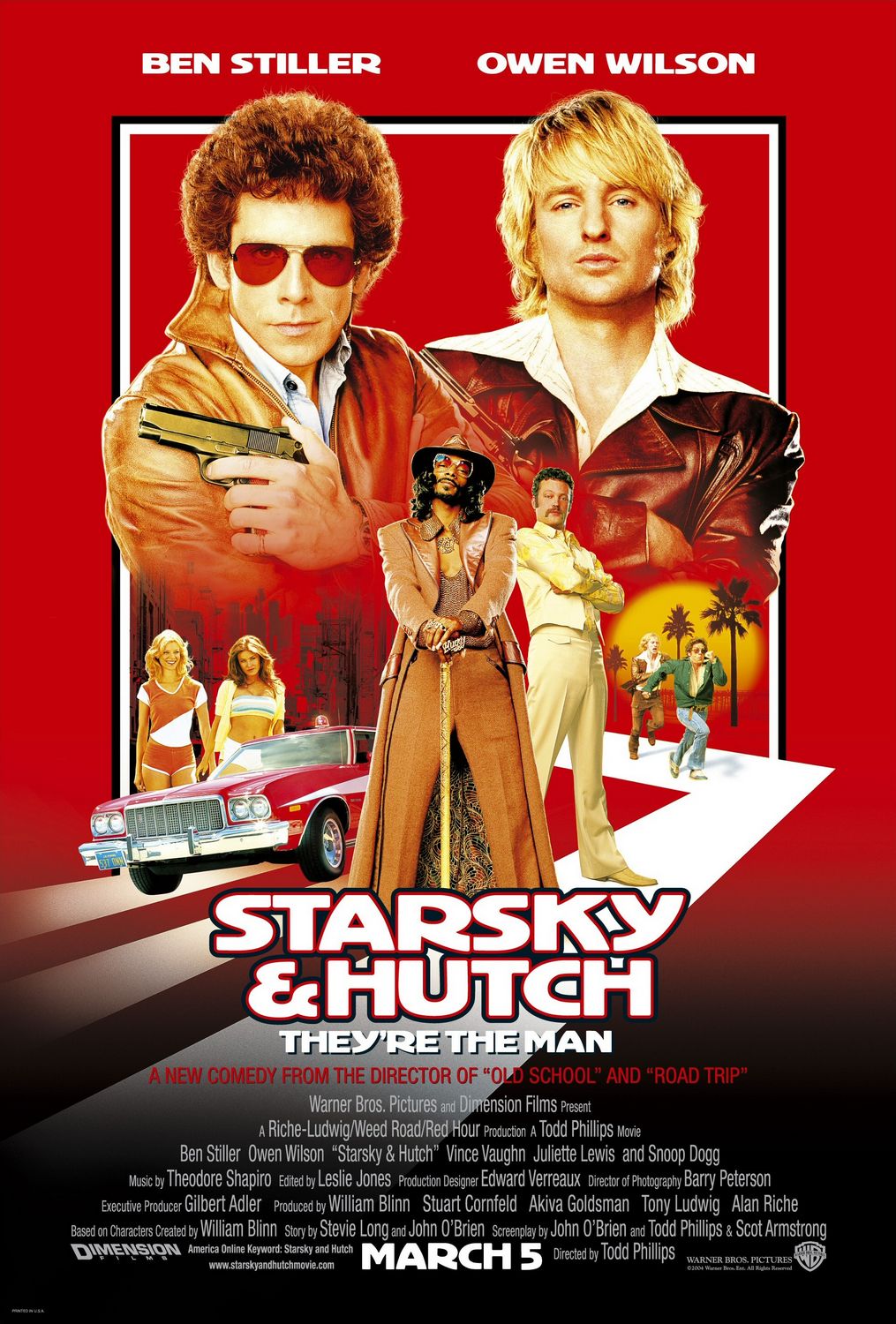
Starsky & Hutch Font
ActionStarsky & Hutch is a 2004 American buddy action comedy film directed by Todd Phillips. The film stars Ben Stiller as David Starsky and Owen Wilson as Ken Hutchinson.
The film title on the poster features a font that is quite similar to Legothic Bold. Legothic is a clean and modern sans-serif created by Phil Martin in 1973, suitable for both body text and headlines.